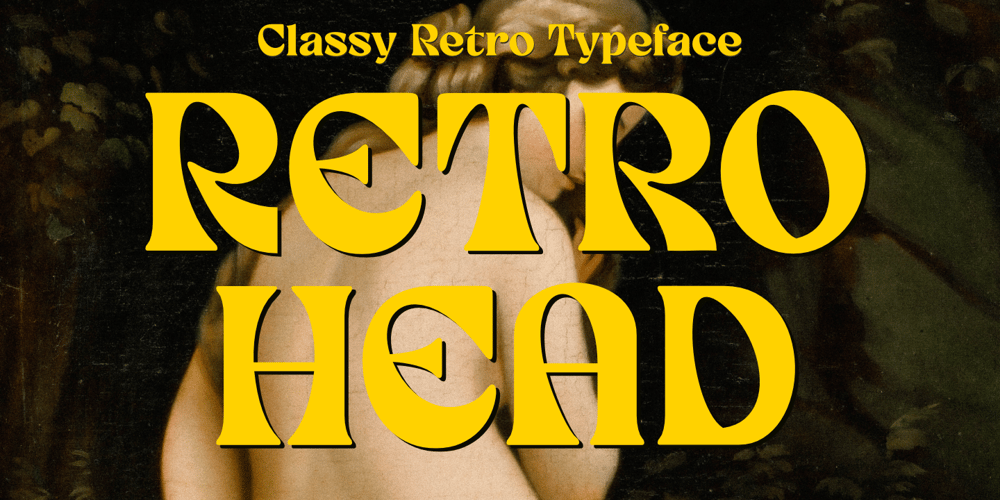
Retro Head Font Family was designed by 50Fox Studio and published by 50Fox. Retro Head contains 2 styles and family package options. “Everything old is new again,” as they say.Introducing “Retro Head” – A retro-modern inspired typeface with a bold, charming and versatile look. This font is also equipped with an opentype feature to support your creations.You will get : Retro Head Regular Retro Head Italic Ton of glyphs Ligatures & Alternates Works on PC & Mac Simple installations Accessible in Adobe Illustrator, Adobe Photoshop, Adobe InDesign, even work on Microsoft Word. PUA Encoded Characters – Fully accessible without additional design software. Language Support: Afrikaans, Albanian, Czech, Danish, Dutch, English, Estonian, Finnish, French, German, Hungarian, Italian, Latvian, Lithuanian, Norwegian, Polish, Portuguese, Slovak, Slovenian, Spanish, Swedish, & much more..Thank you for looking.